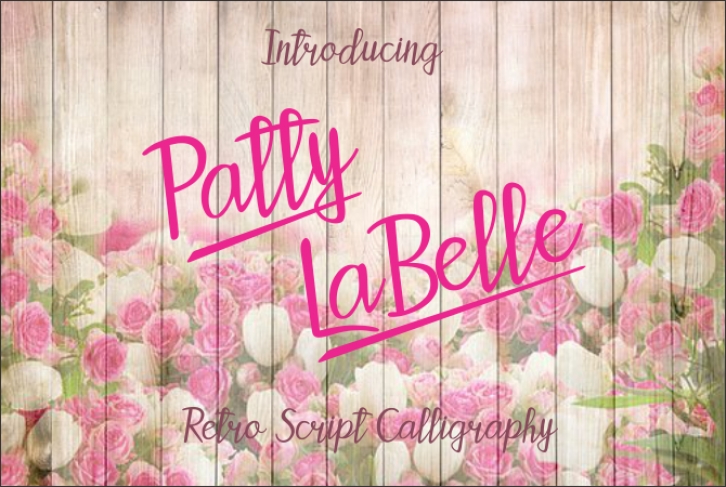
Patty LaBelle is a gorgeous and versatile script font with clean formation and dedication. This font looks great in romantic designs, but is strong enough to complement athletic or rustic projects as well.